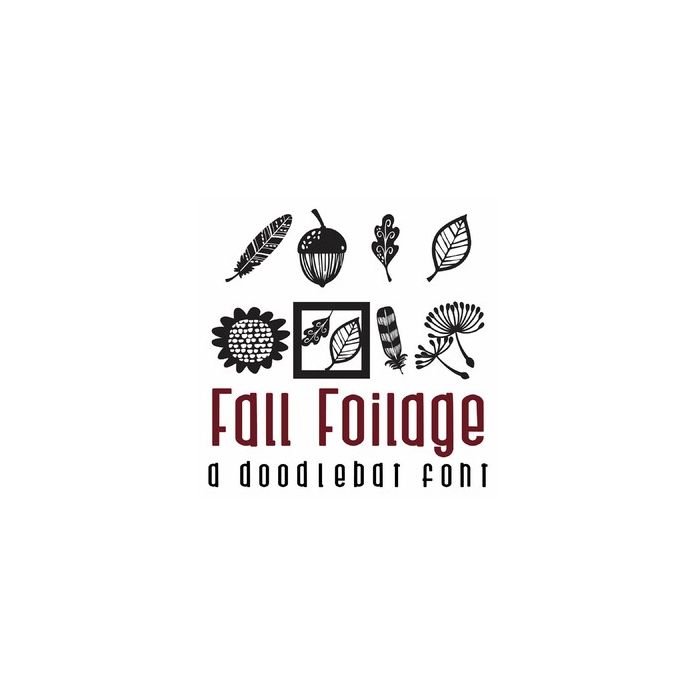
This fun doodlebat font features 26 fall foilage images, from leaves, flowers, acorns, and mushrooms. Perfect for cards, gifts, decor, crafts, scrap book pages, planner stickers and more!